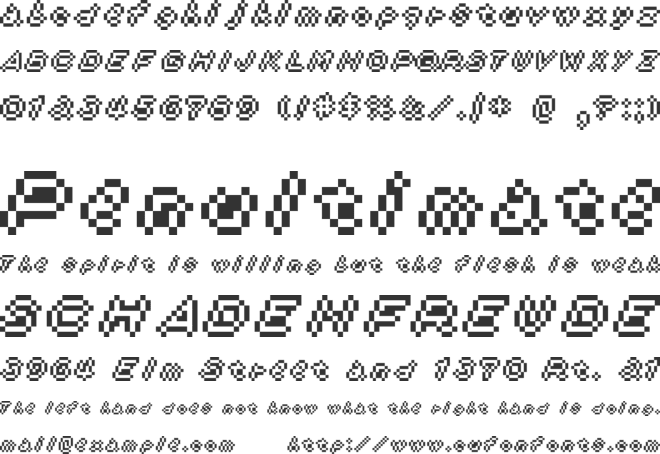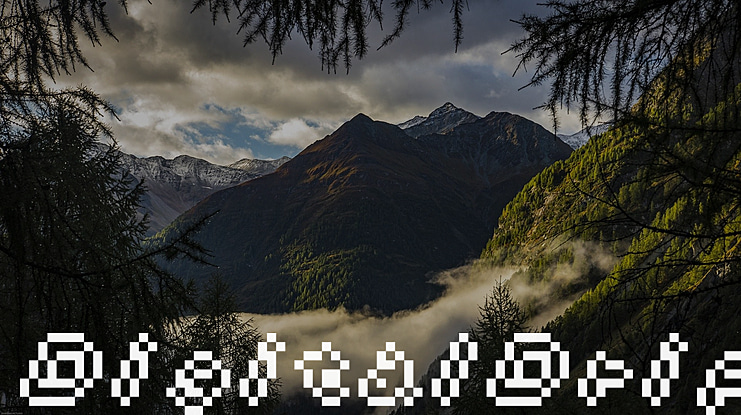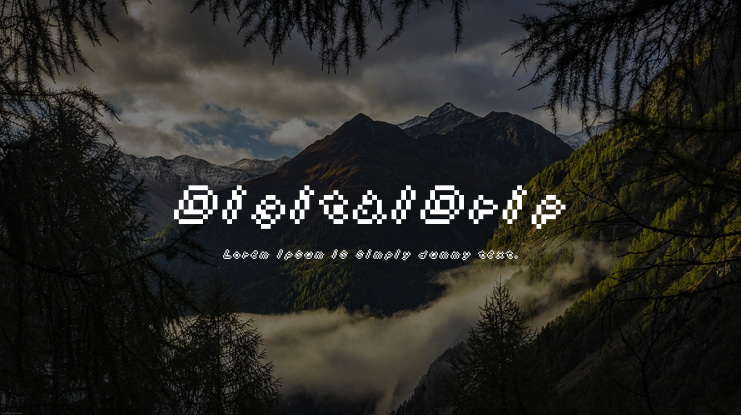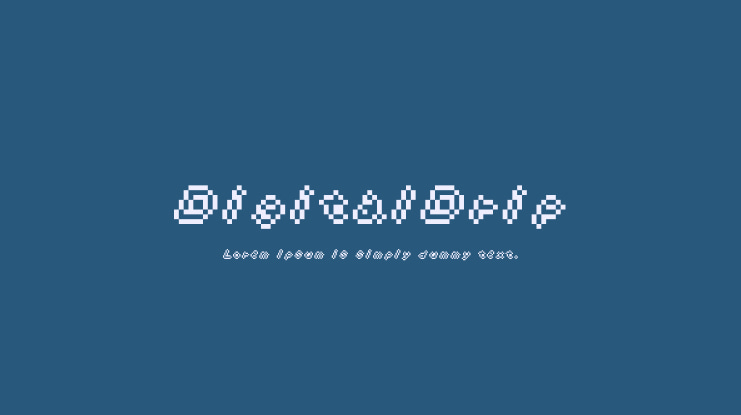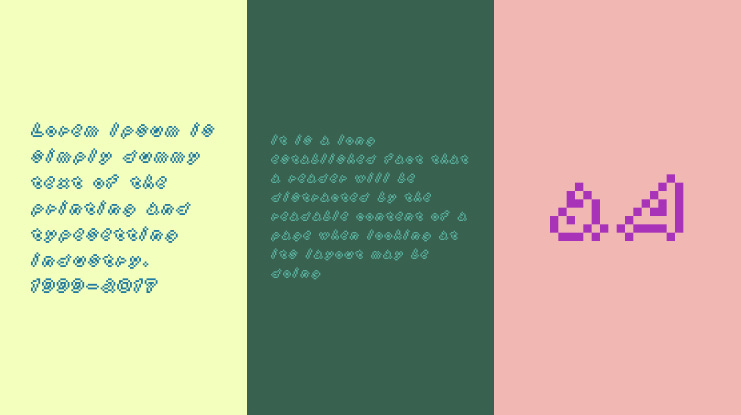
DigitalDrip Font
This is the official font of the streetwear clothing brand www.Anti.biz (http://www.Anti.biz) This font was created by MWalker and NVlasic. This is a font revival from the old 1991 video game Hacha Mecha Fighter. We noticed the font had a unique shading and we wanted to recreate the font to use for the clothing tag and hang tag.